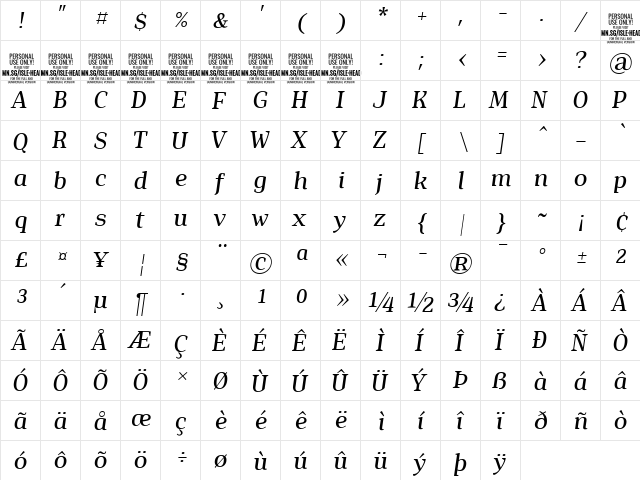
Isle Headline PERSONAL USE Medium Italic
Design Context for Isle Headline PERSONAL USE Typeface
Isle Headline PERSONAL USE offers clean, dependable letterforms without strong stylistic allegiance, making it a practical choice for designers who need flexibility. Its italic angle brings a sense of urgency and motion to the letterforms.
Pro Tip: Try Isle Headline PERSONAL USE for annotation and caption copy alongside an upright companion — the contrast in angle creates a dynamic but ordered typographic system.